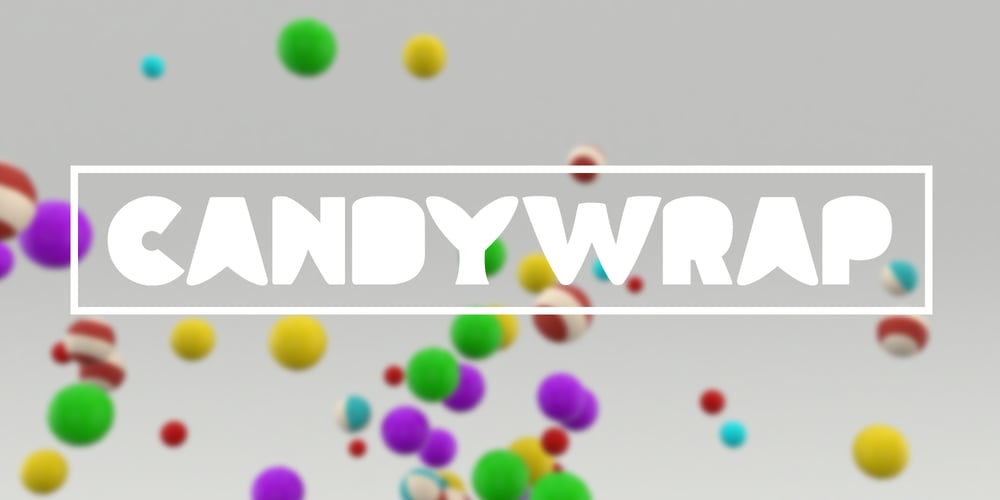
Candywrap
Candywrap font
Candywrap Font Family was designed by Taka Ikari and published by Outerend. Candywrap contains 1 styles and family package options. The design of the font, “Candywrap,” was inspired by the various shapes of candies It gives soft and gentle, but optimistic and fun feel to your design. It offers round-shaped glyphs which can be uniquely used for your shop signs, logos, posters, menus, billboards, and many others!It’s a caps only font.